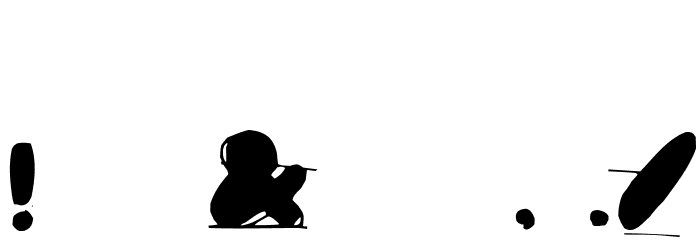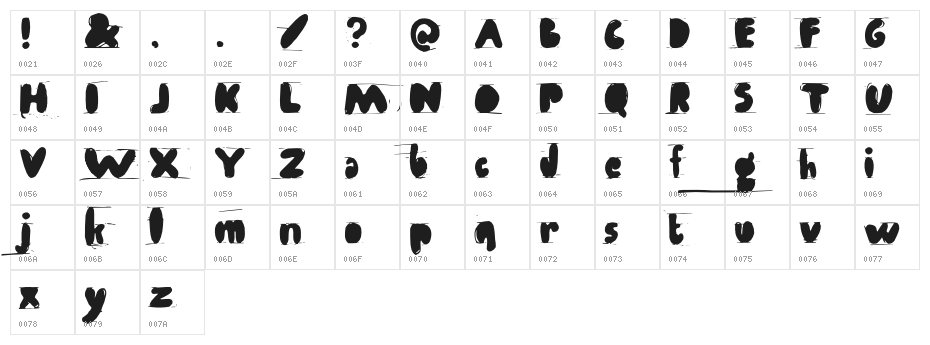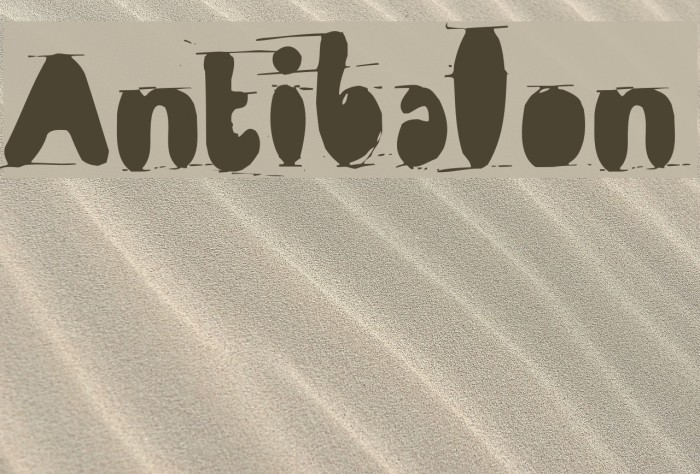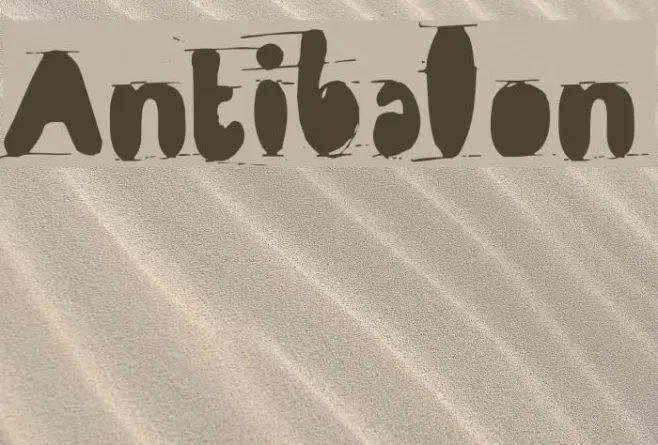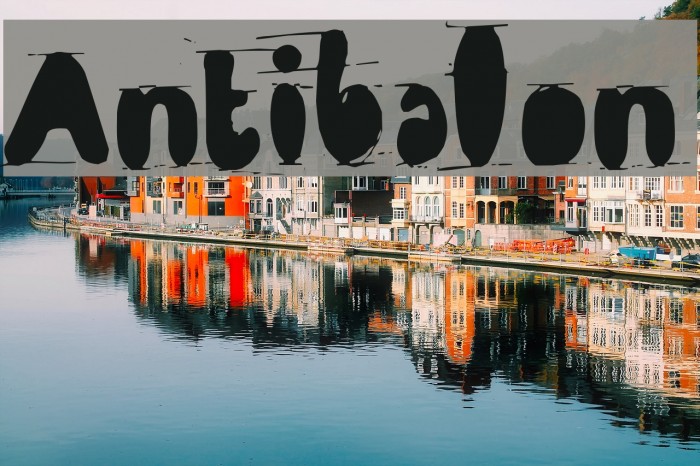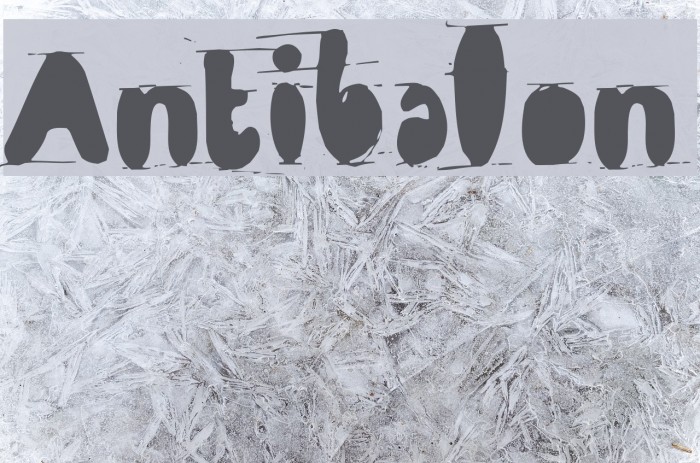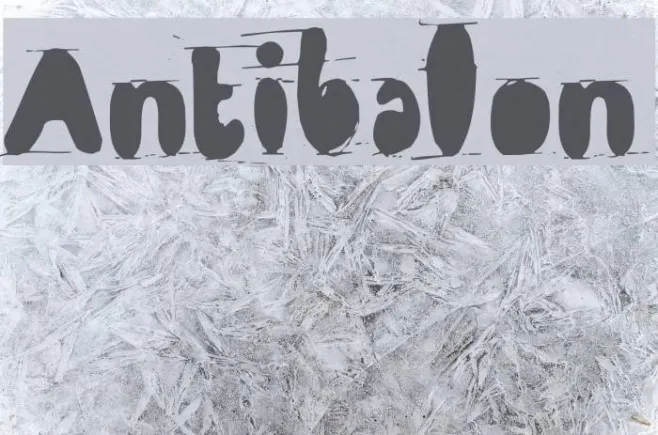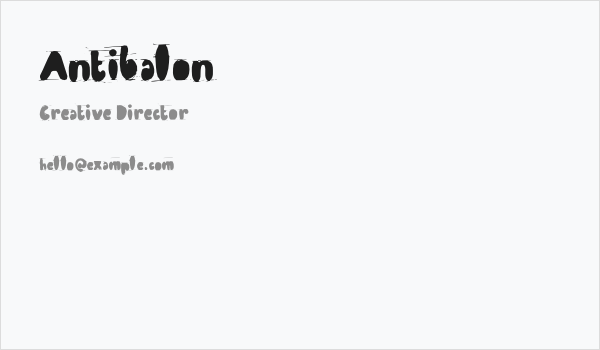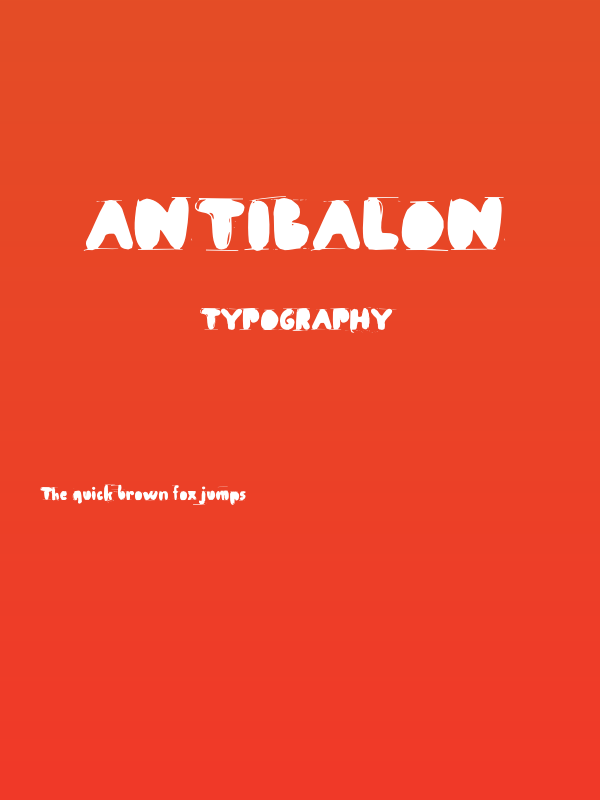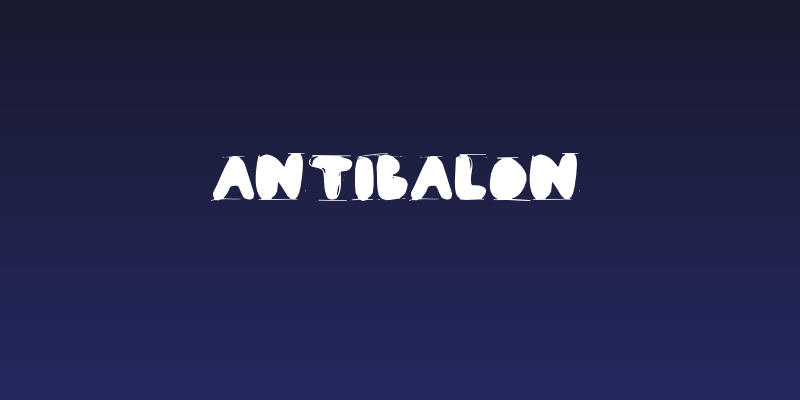
Antibalon Font
Antibalon Description
This font features a bold and expressive style with a hand-drawn appearance. The characters are thick and rounded, giving them a playful and artistic feel. The irregular edges and varying stroke widths contribute to its dynamic and energetic look. The uppercase and lowercase letters maintain a consistent style, while the numbers and special characters add to its unique charm. This font is ideal for projects that require a creative and informal touch.
| Overall Style | Artistic |
| Proposed Projects | Ideal for posters, creative branding, children's books, and artistic projects. |